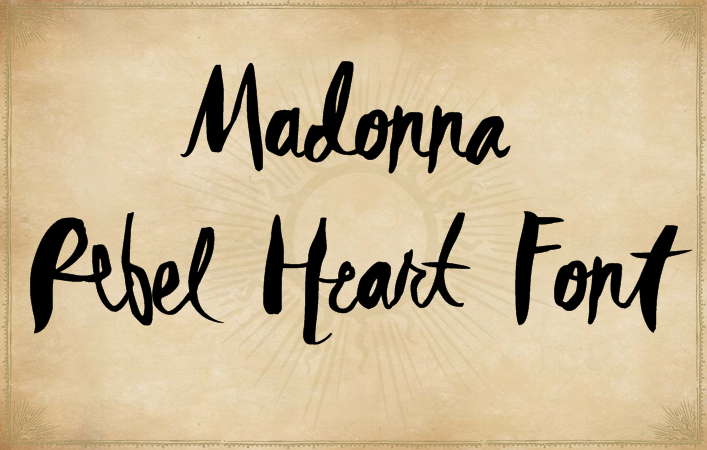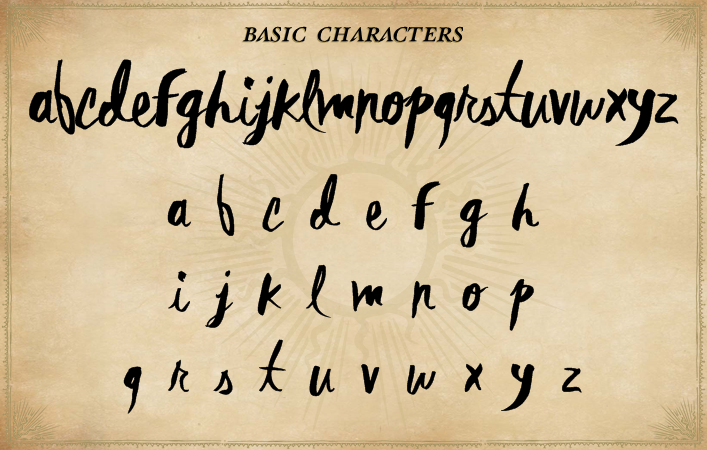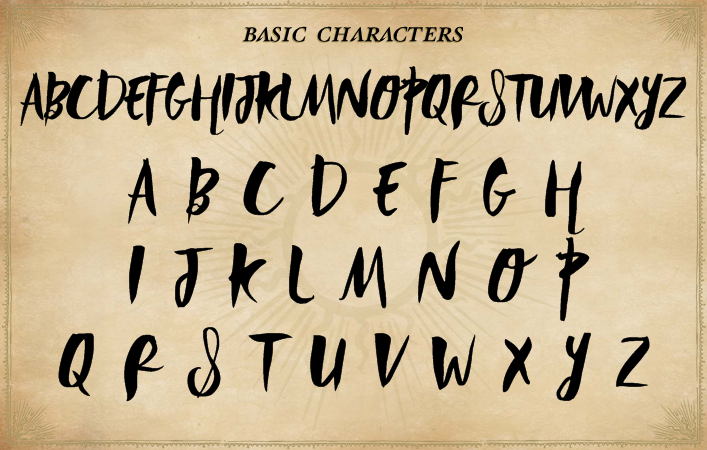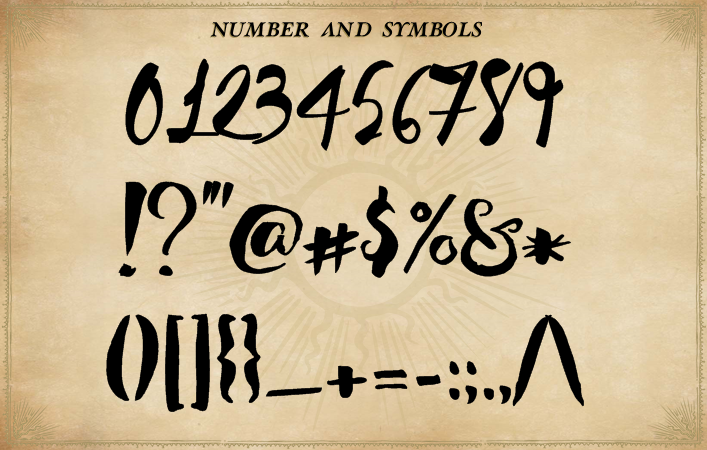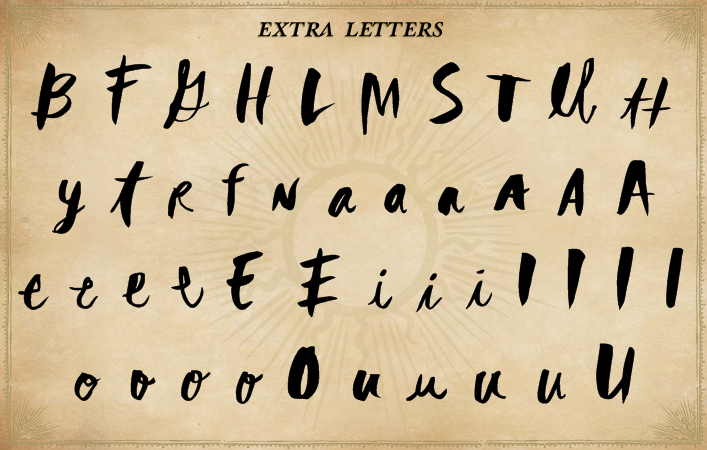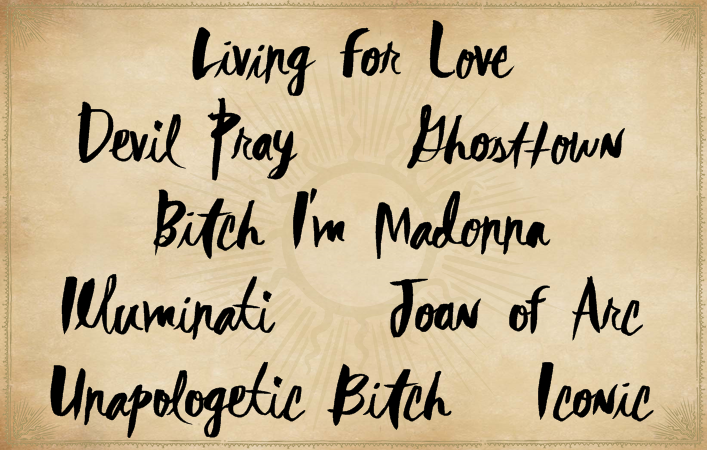
Rebel Heart Font
The Rebel Heart font is a font based on the album “Rebel Heart” by Madonna.
Most of the characters are based on the album booklet. Others are adapted to match the booklet to create a unique typeface. This ode to Madonna is a perfect playful font.